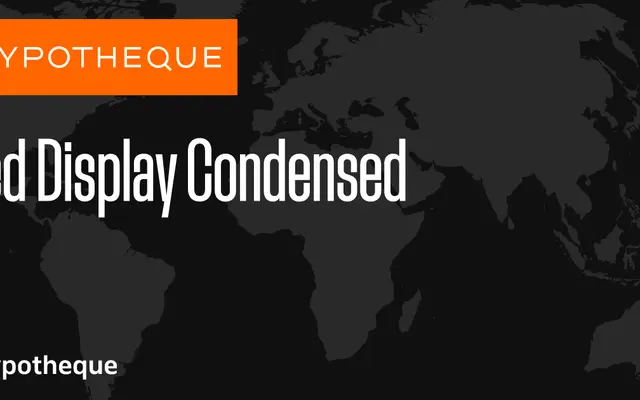
Zed Display Condensed
Typotheque
A condensed cut from Typotheque's expansive Zed system, a modular geometric display family spanning nine widths, two optical variants and an icon set.
Zed Display Condensed sits within one of the most architecturally thorough type systems in recent foundry output, covering nine widths from Extra-Compressed to Extra-Wide across Display and Round subfamilies, alongside dedicated Text and Icon cuts. Each weight runs in three slant variants: upright, slanted and backslanted, with styles named after world cities from Amsterdam to Zaragoza. The Variable font offers the full range in a single file, making the system practical for responsive and motion contexts.
A condensed display sans with geometric construction, part of the broader Zed system spanning multiple widths and optical sizes. The slanted and backslanted variants and city-named styles suggest a contemporary geometric display orientation.